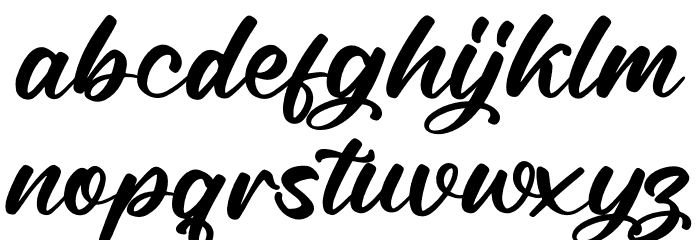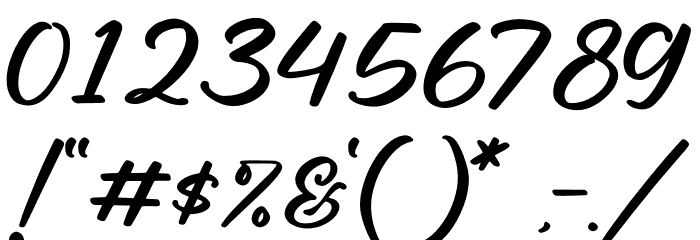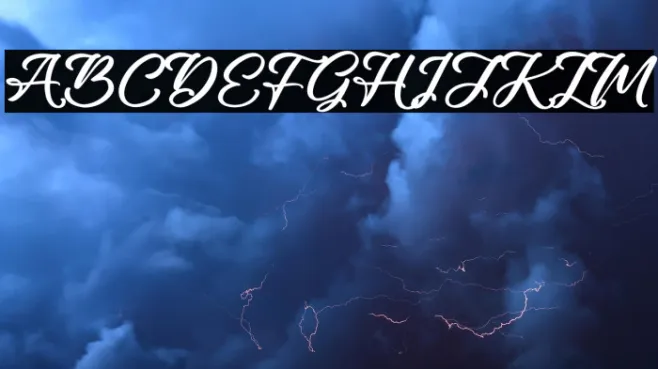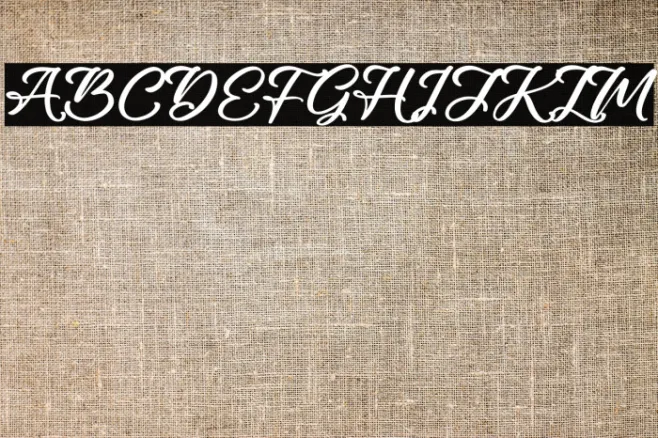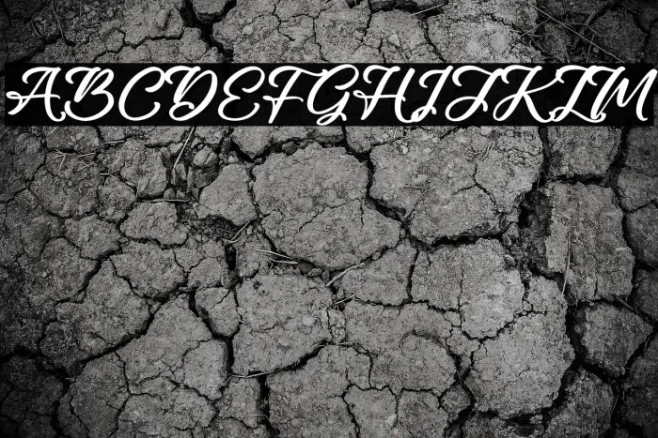
Rough Anthem Font
This font features a bold and flowing script style, characterized by its elegant and cursive letterforms. The uppercase letters exhibit a sophisticated flair with sweeping curves and loops, while the lowercase letters maintain a consistent fluidity, enhancing readability. The numerals are designed with a similar cursive touch, ensuring uniformity across all characters. Special characters are seamlessly integrated, maintaining the overall aesthetic. The font's bold weight and smooth transitions between thick and thin strokes contribute to its dynamic and expressive appearance, making it suitable for various creative applications.
A bold, flowing script font with elegant cursive letterforms.
- Font: Rough Anthem
- Proposed Projects: Ideal for wedding invitations, branding, logo design, and elegant stationery.
- Category: Script
- Use Case: Logos, Headlines, Invitations